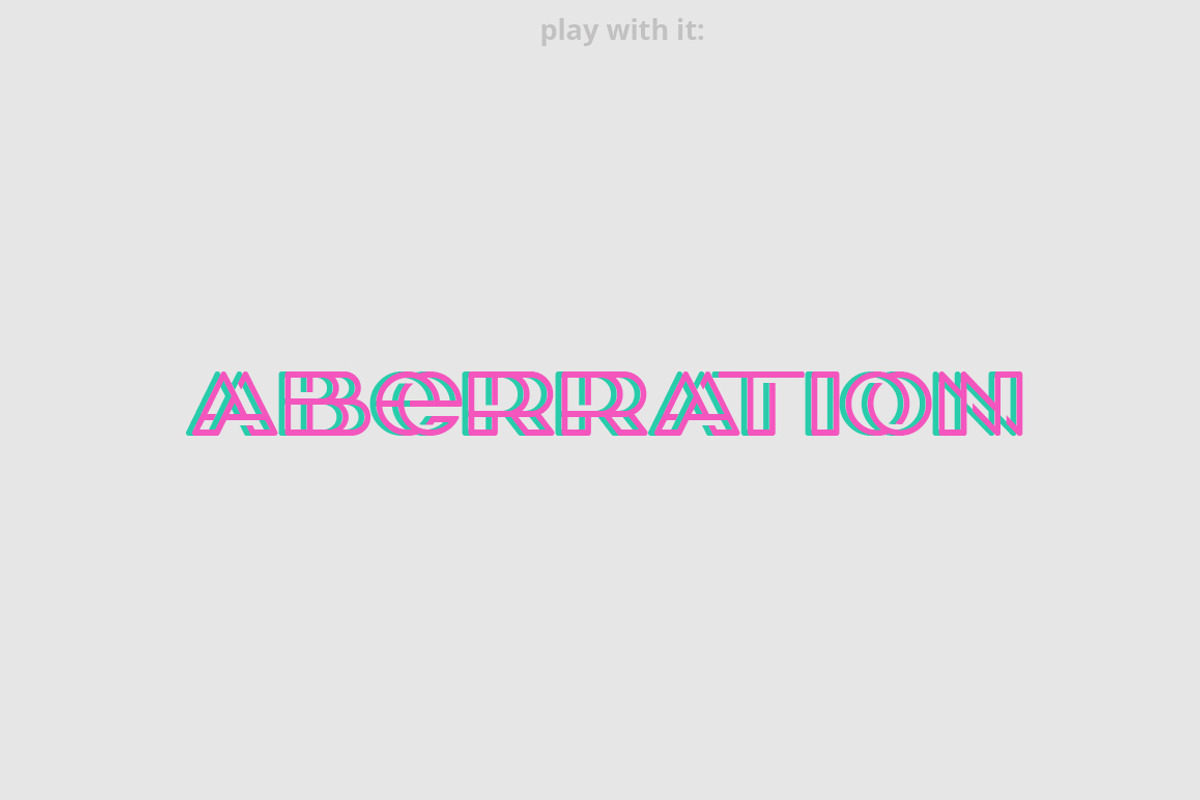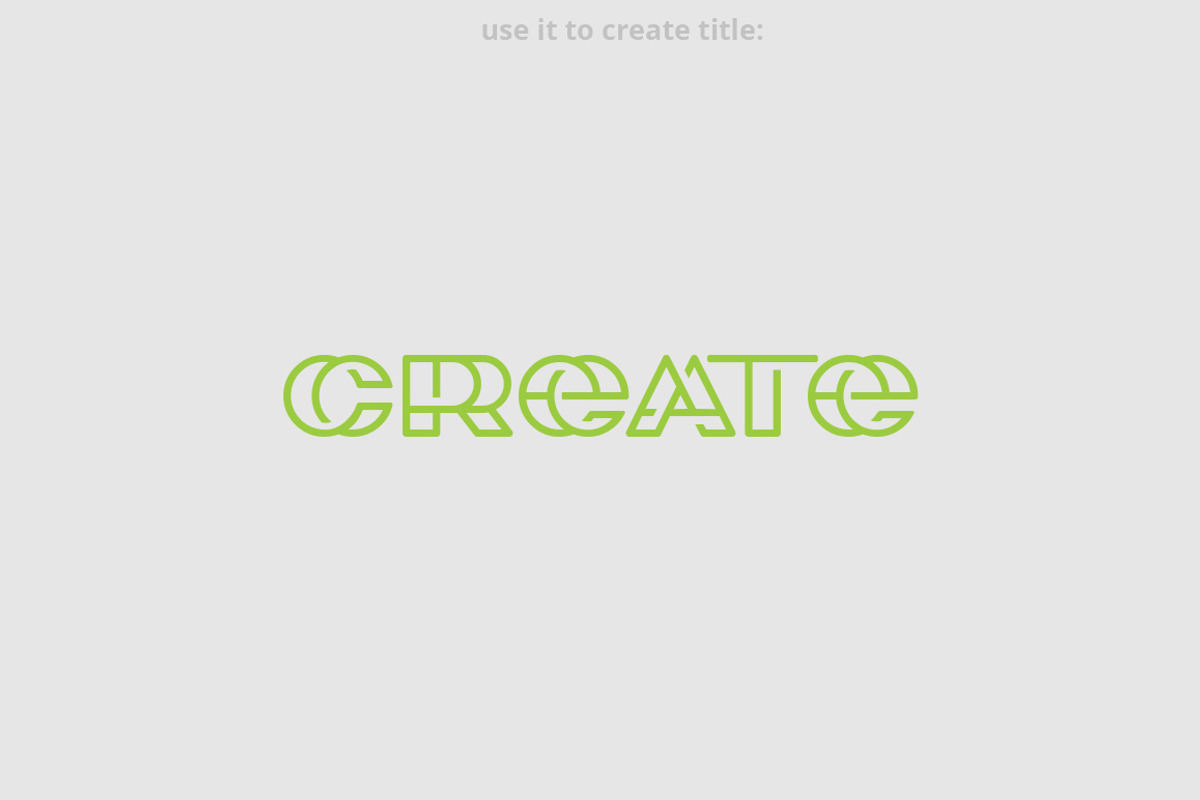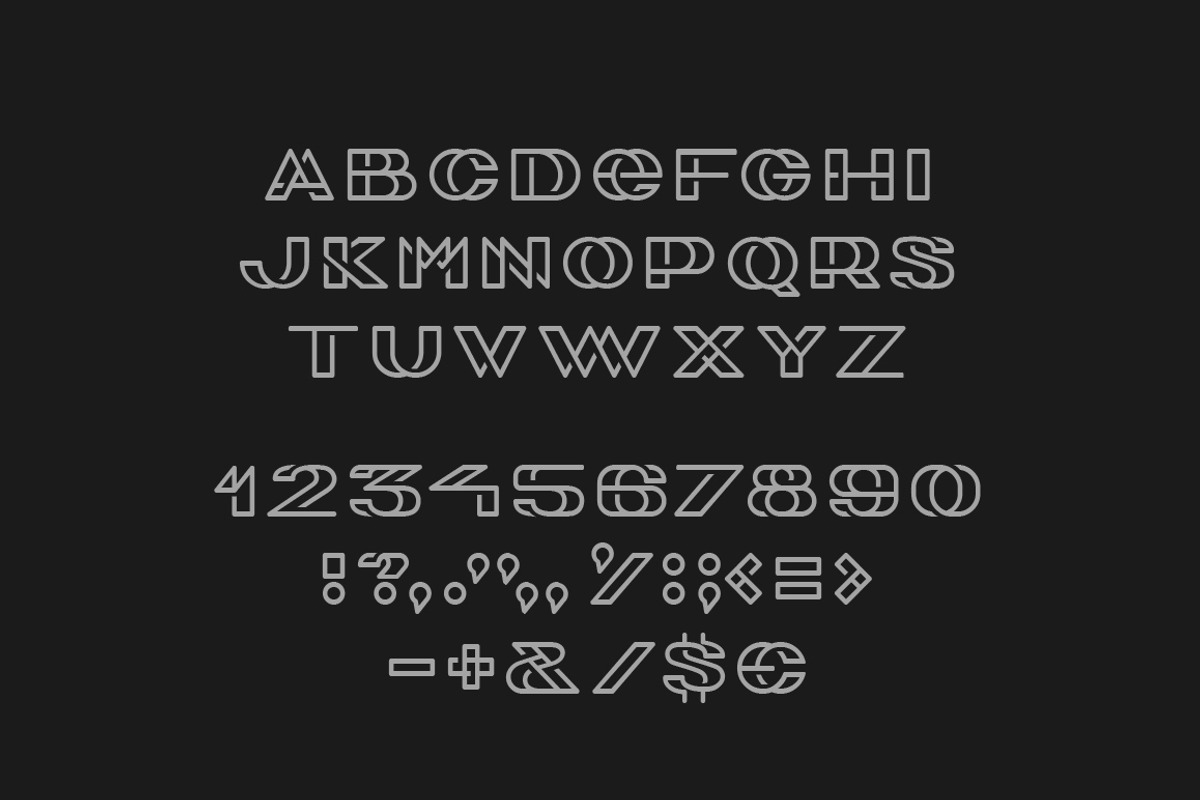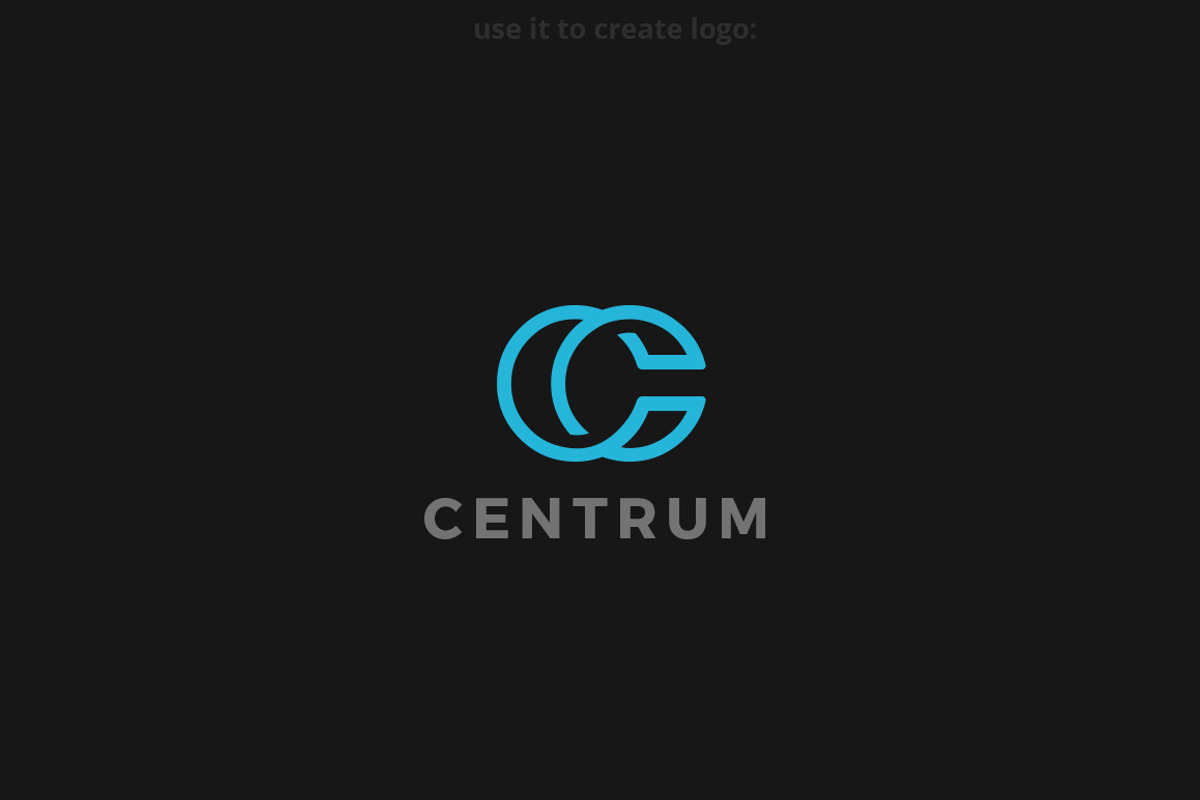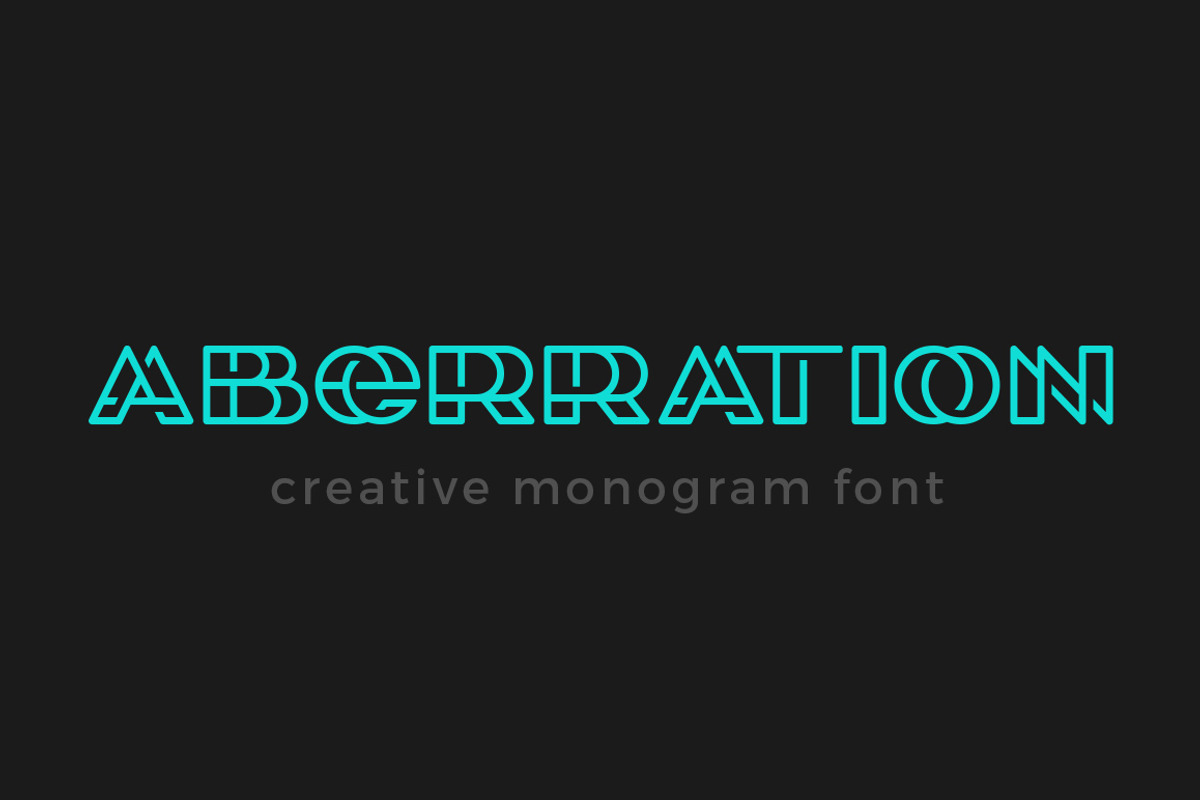
Aberration font
Aberration font by Sentavio is a font selected for branding, posters, packaging, typography.
Why Aberration font is worth a look
Aberration font by Sentavio fits naturally into Branding, posters, packaging, typography.